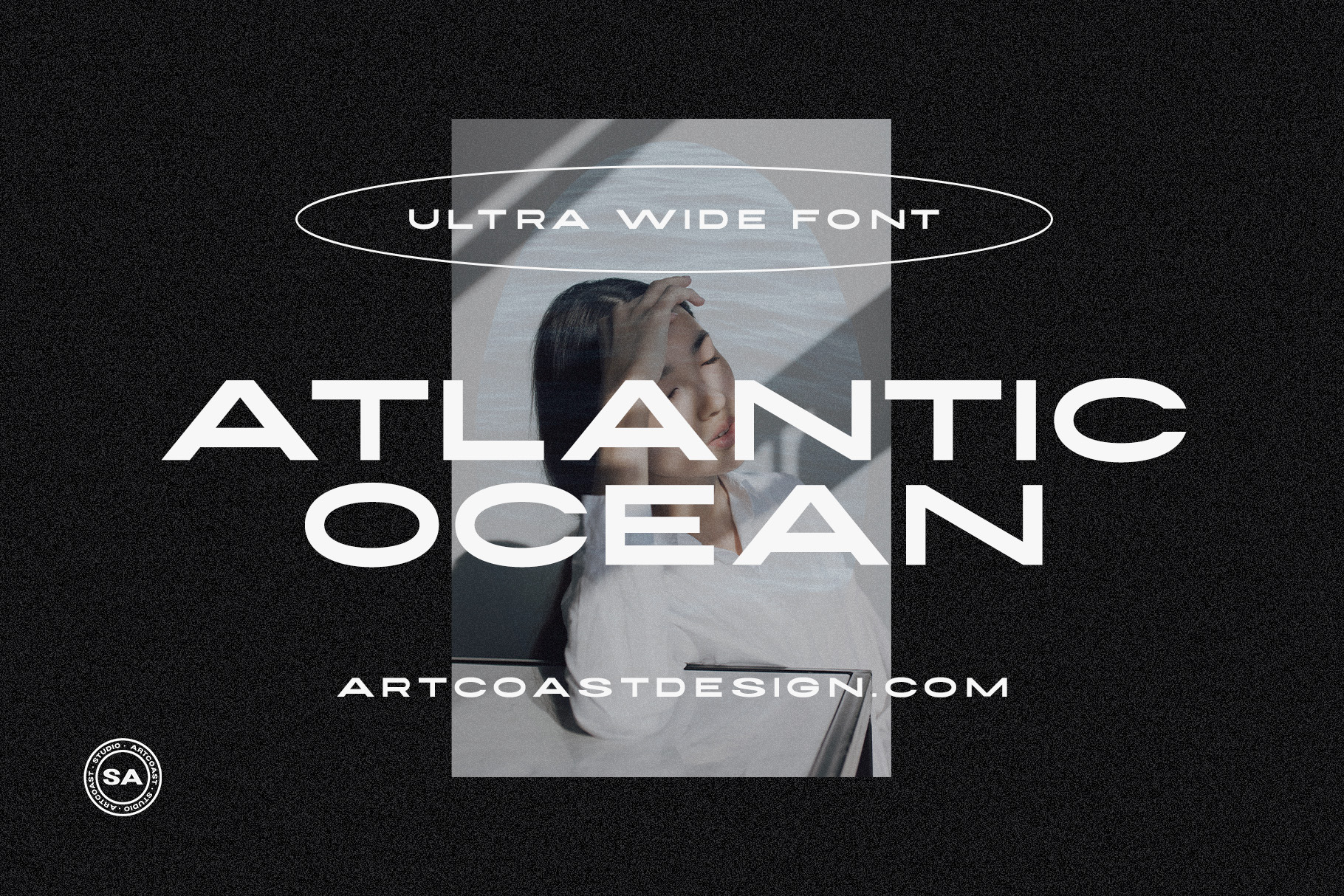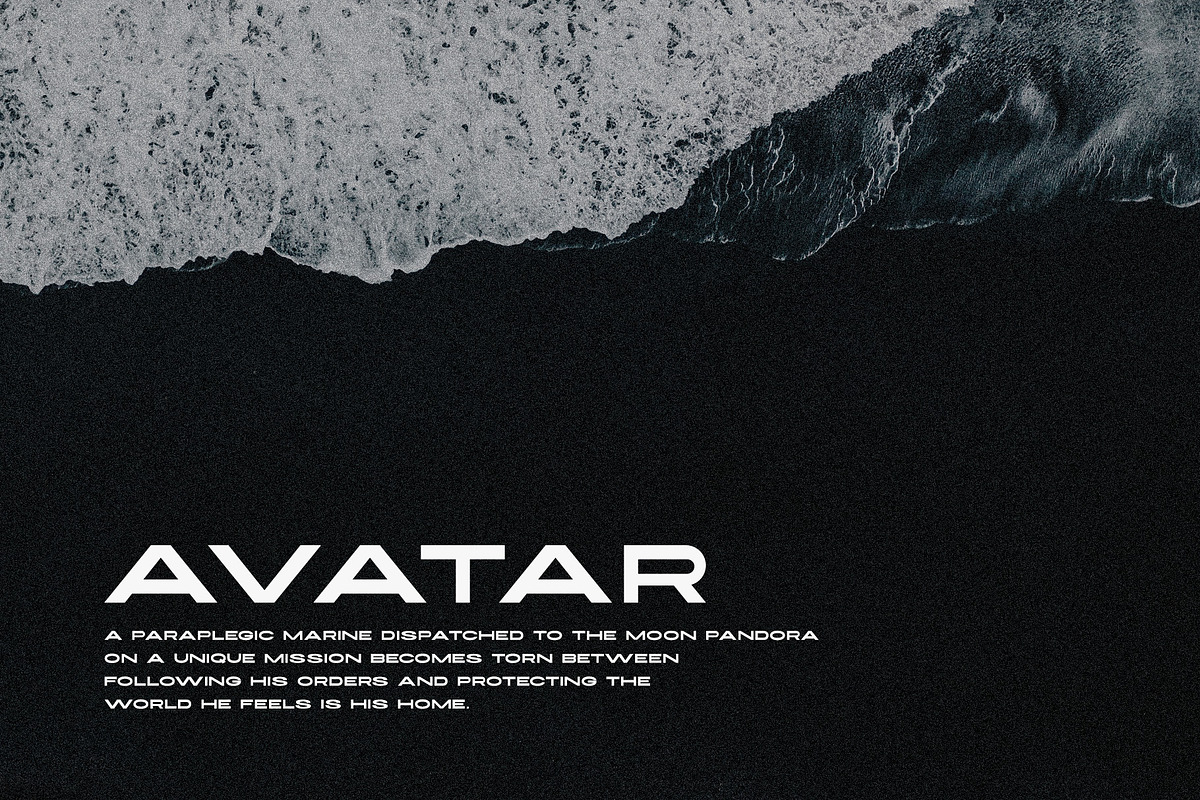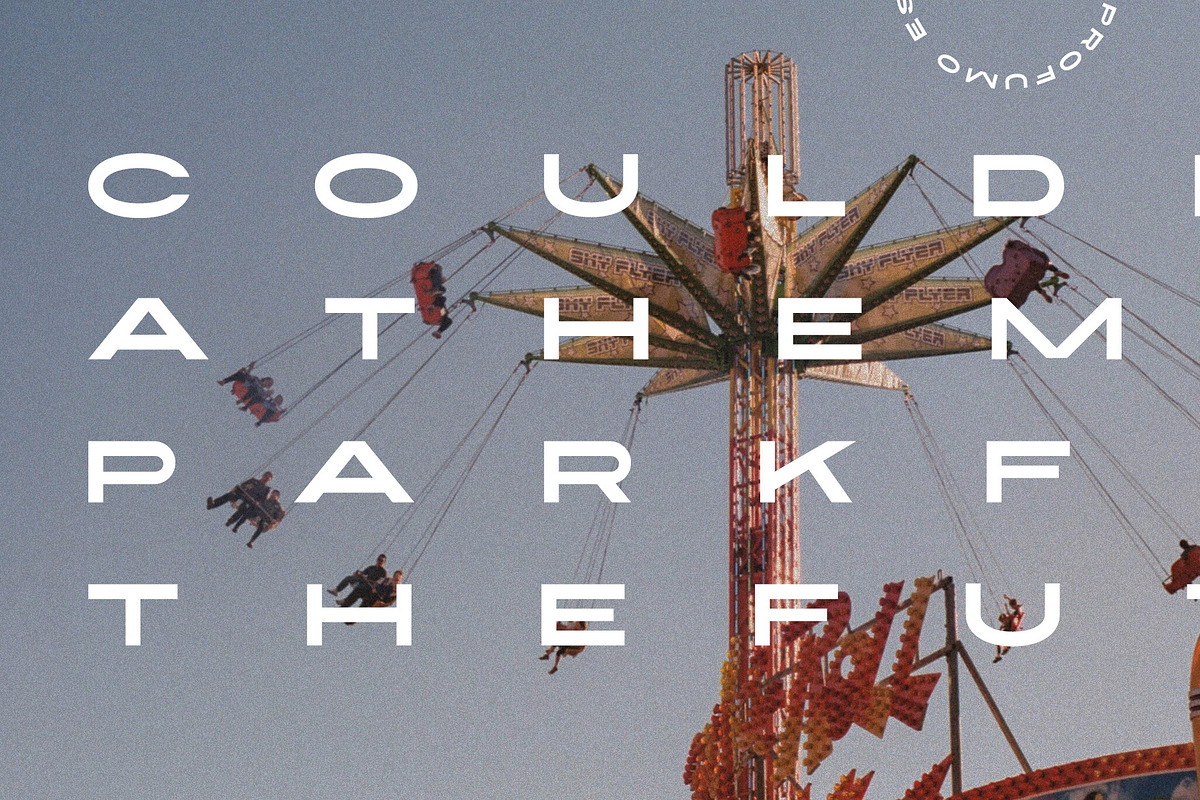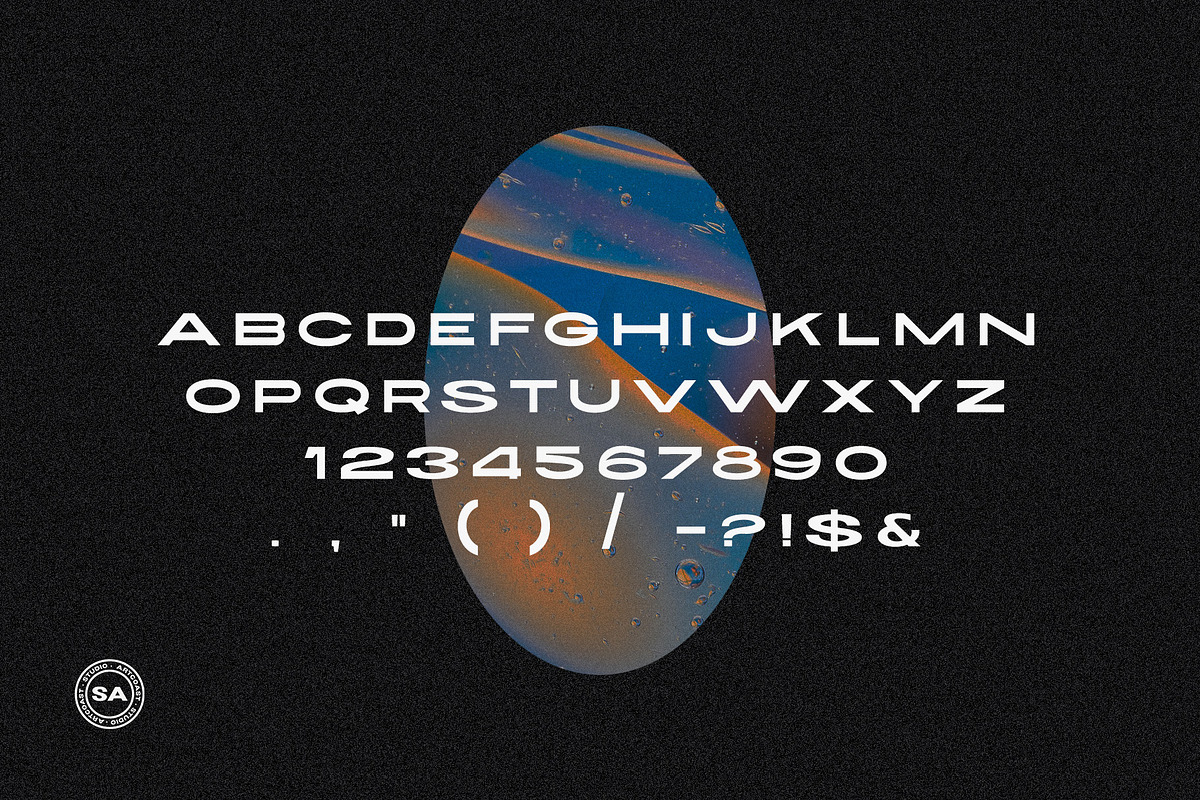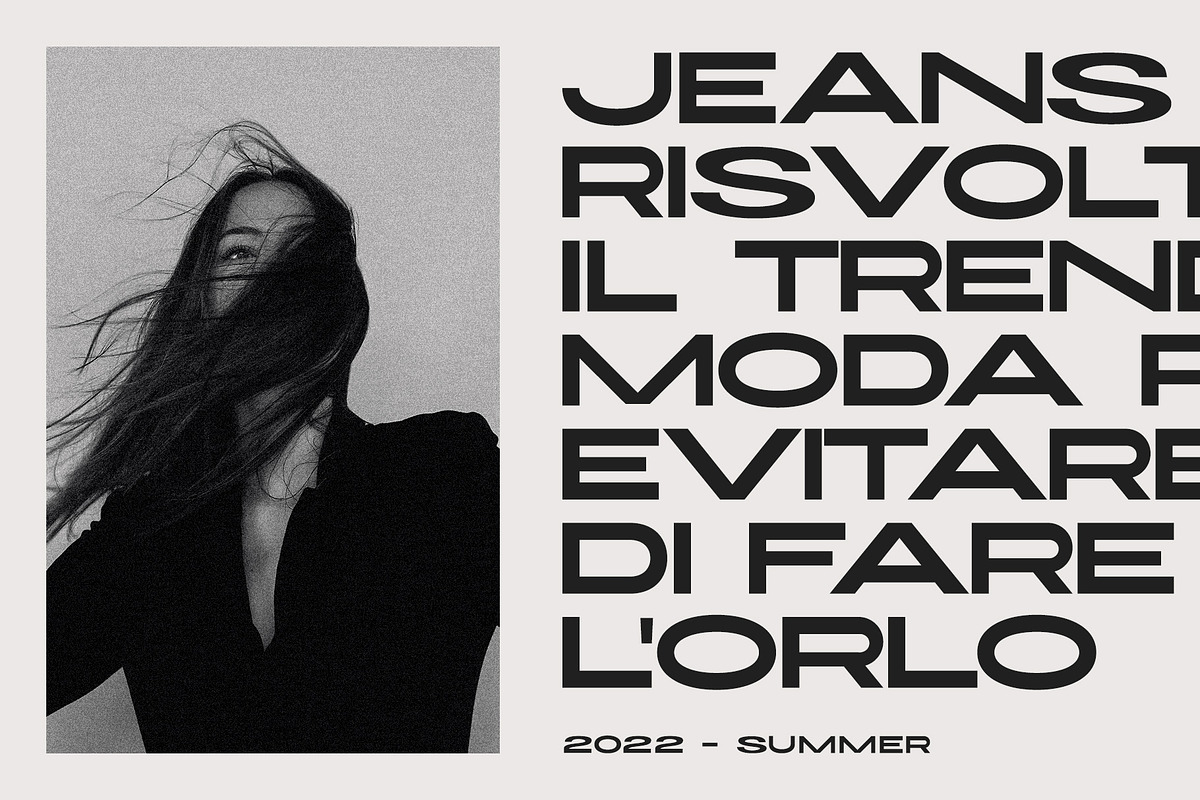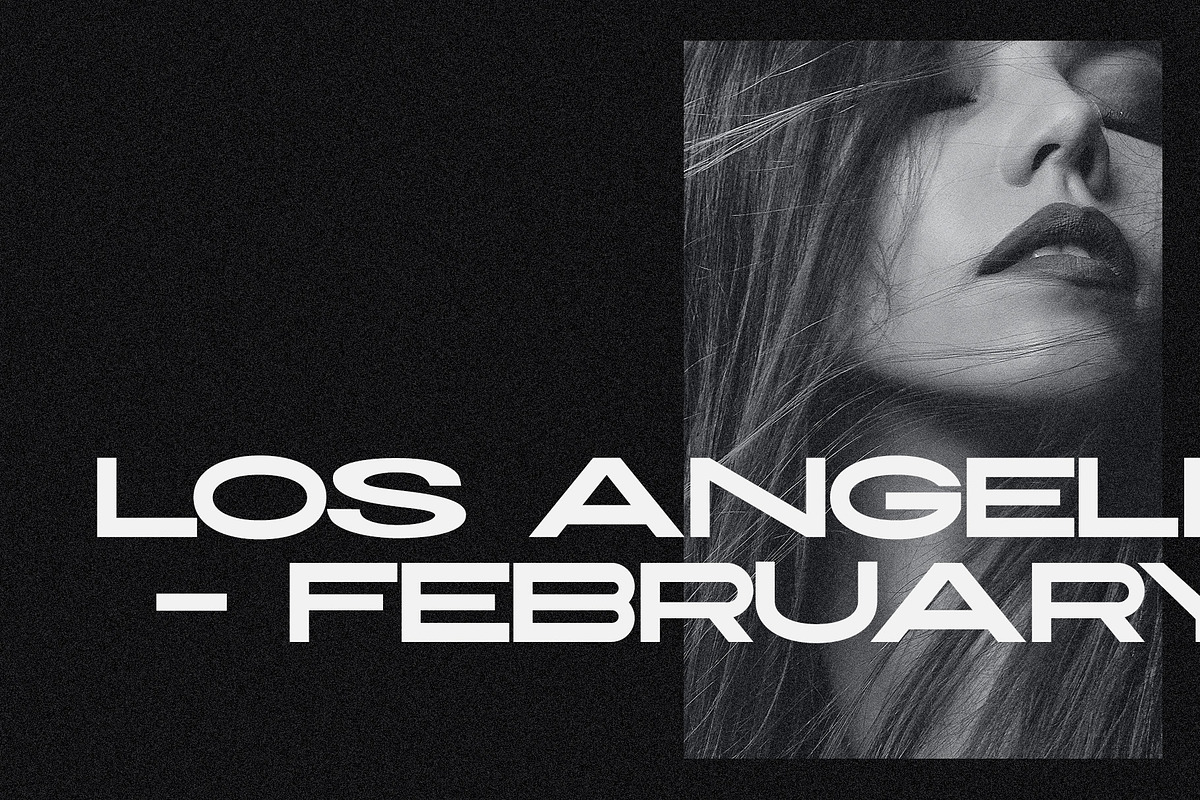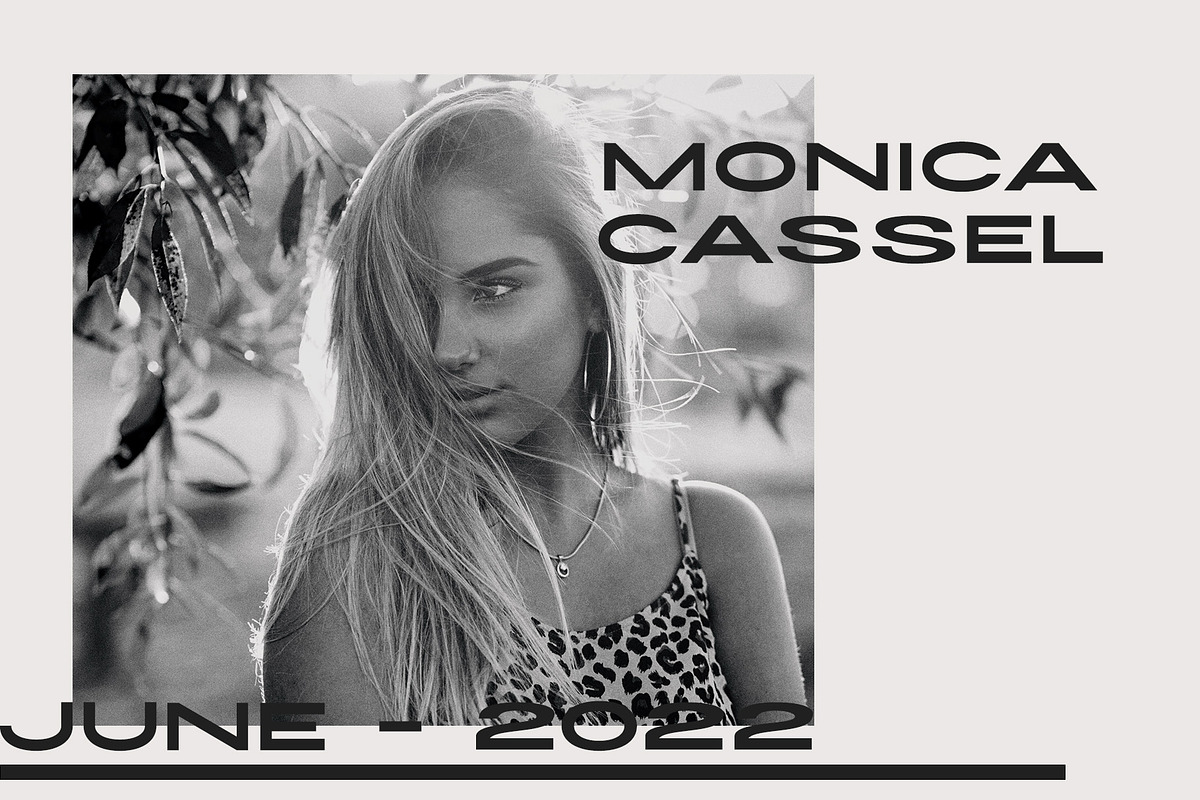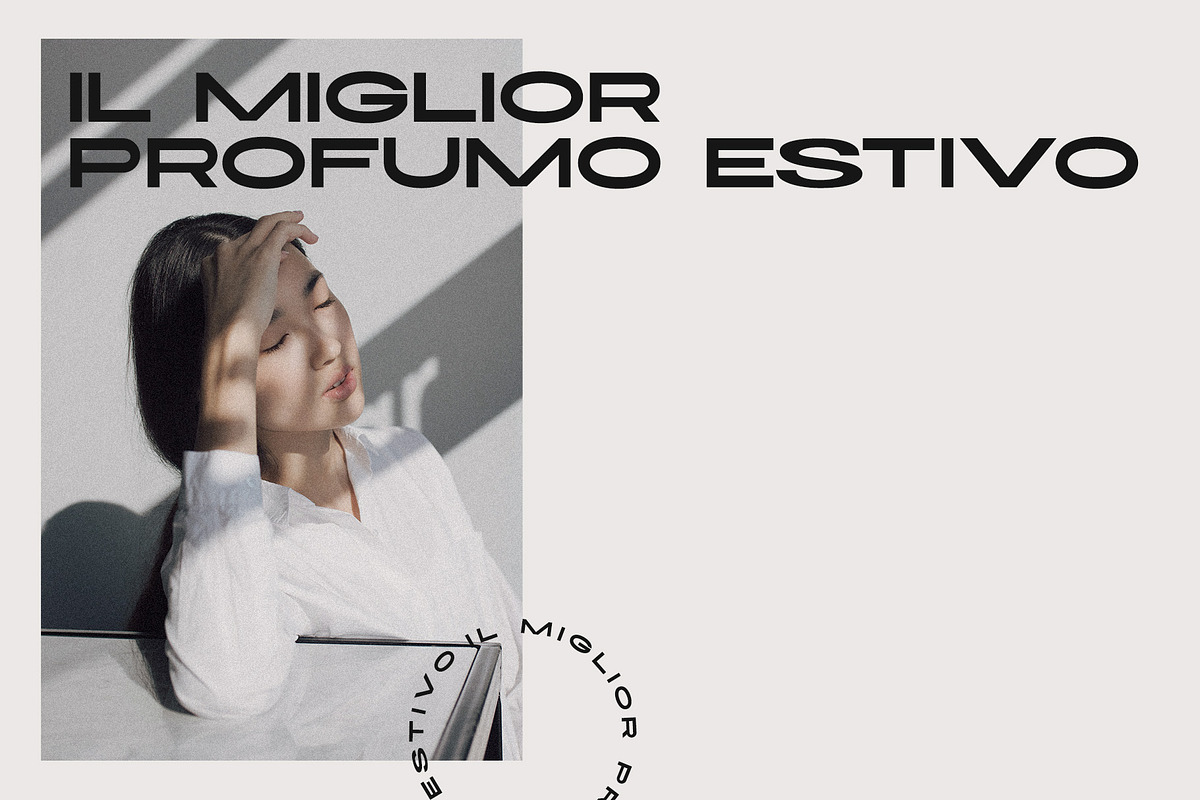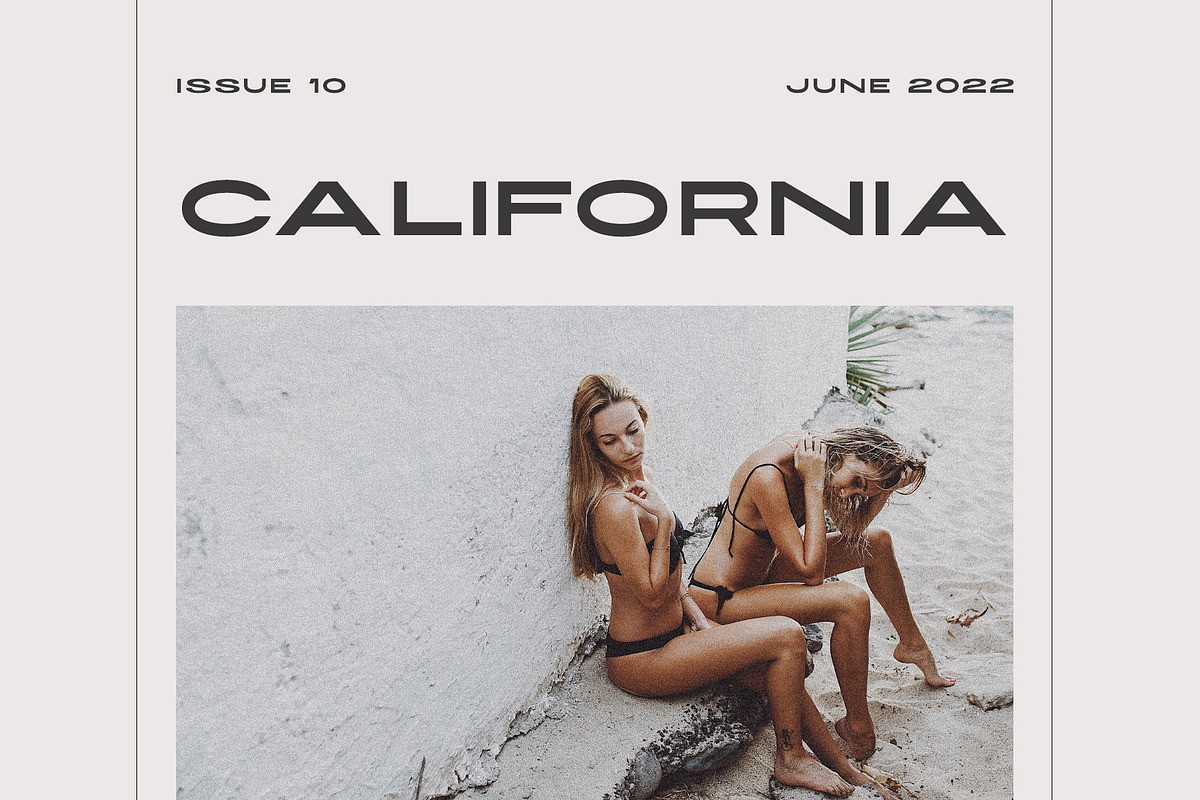
Atlantic Ocean Ultra Wide Sans Font
Atlantic Ocean is a sleek ultra-wide uppercase sans serif built for bold, cinematic typography. Its stretched proportions, geometric shapes, and clean futuristic character create high-impact headlines while maintaining a refined editorial feel.
Uppercase A–Z
Numerals and punctuation
One carefully crafted regular style
Use Atlantic Ocean for fashion editorials, magazine covers, logos, minimalist wordmarks, posters, album artwork, event graphics, social media campaigns, website hero sections, and modern packaging. The spacious letterforms work especially well at large sizes and give short headlines a distinctive contemporary presence.